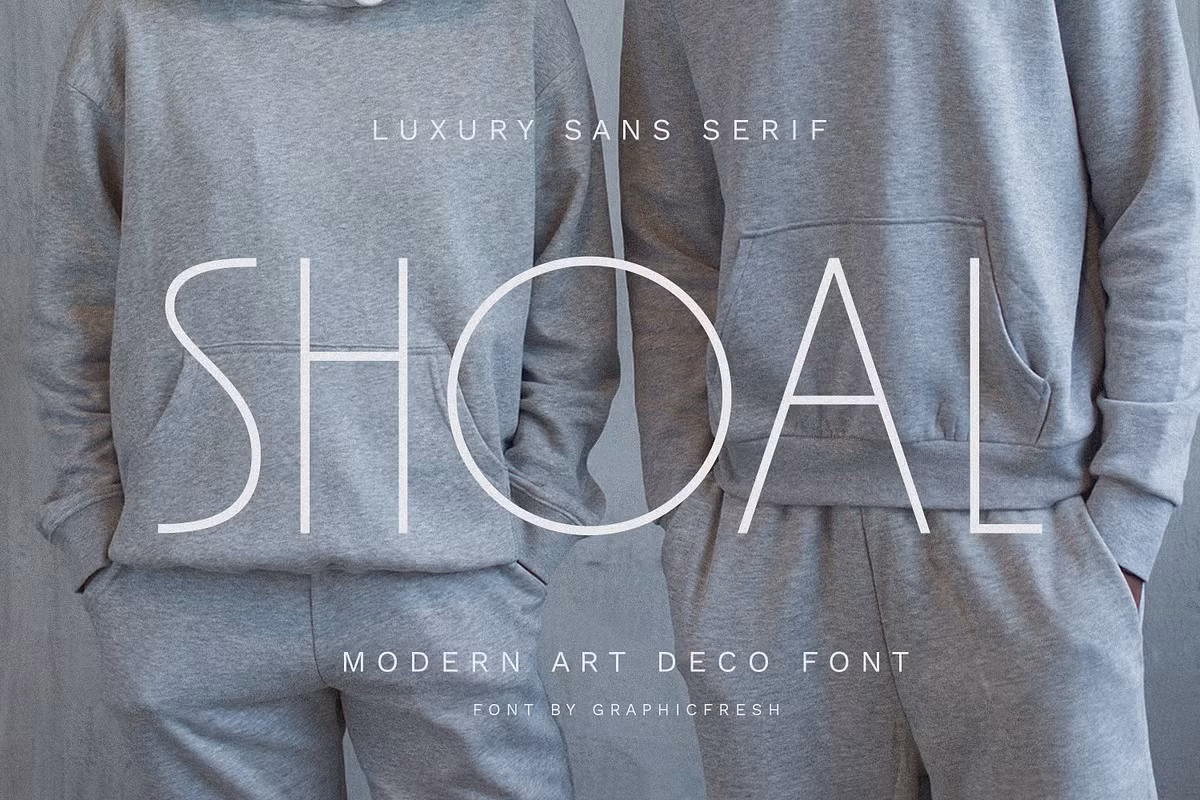
Step into a world of sophistication and luxury with Shoal - Modern Art Deco Font Free Download. This beautifully designed font captures the essence of the Art Deco style, featuring geometric shapes, clean lines, and a bold, stylish appearance. Perfect for logos, branding, invitations, editorial design, and any project that requires a classic yet modern touch.
Shoal combines the opulence of Art Deco with contemporary readability, making it ideal for high-end branding or vintage-inspired projects. It includes uppercase and lowercase letters, numerals, punctuation, and multilingual support, offering versatility for various design applications.